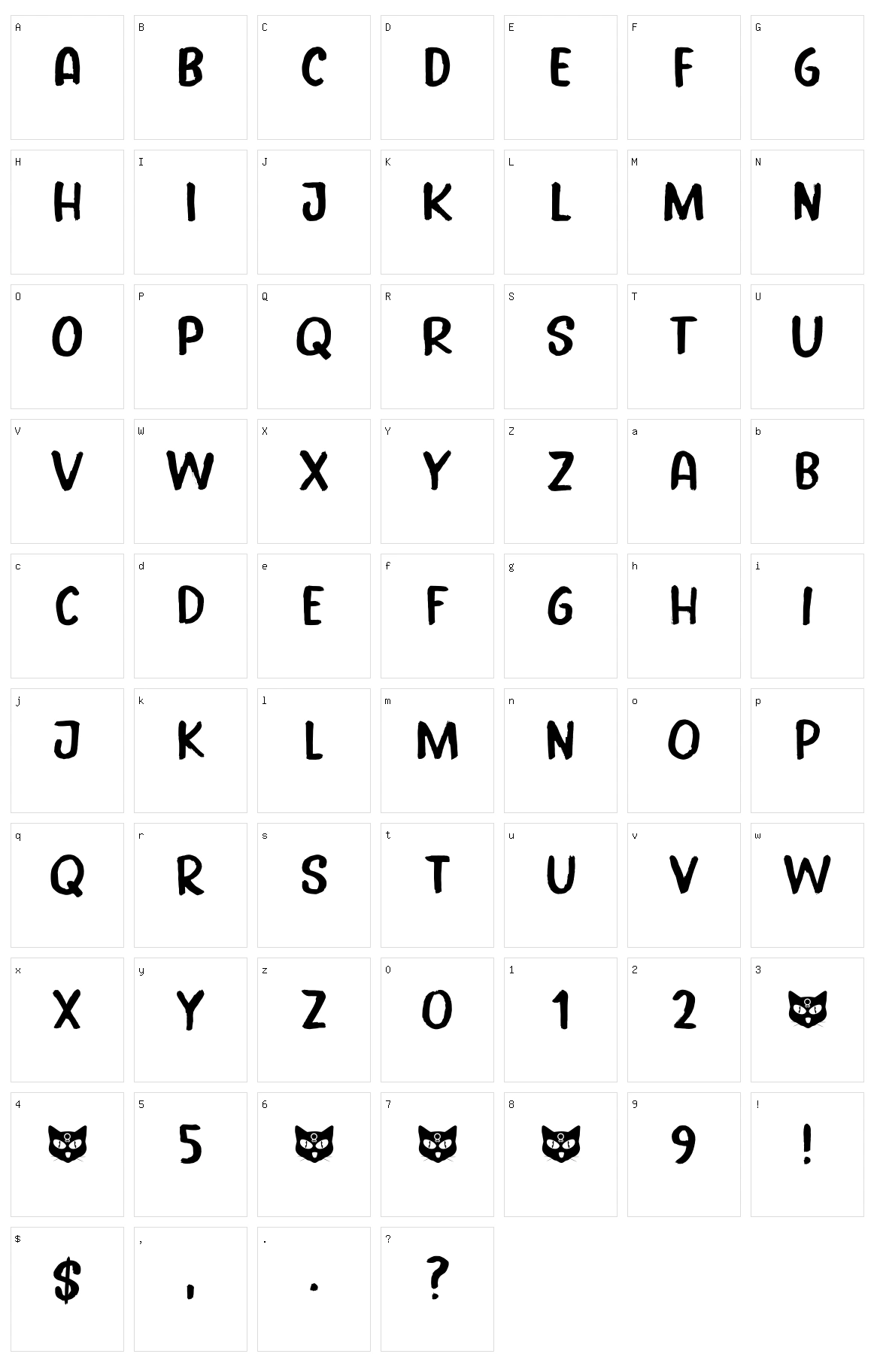
The free font Trollkatt is carefully designed by Hanoded, showcasing a thoughtful balance of creativity and usability and falls under the Horror font style. When you download the ZIP file, it contains only 692.31 KB of font files, making it lightweight and quick to download. Please review the license details below to understand permitted usage and distribution rights. If license information is not available, we recommend using this font for personal projects only or contacting the author directly for commercial usage permissions.